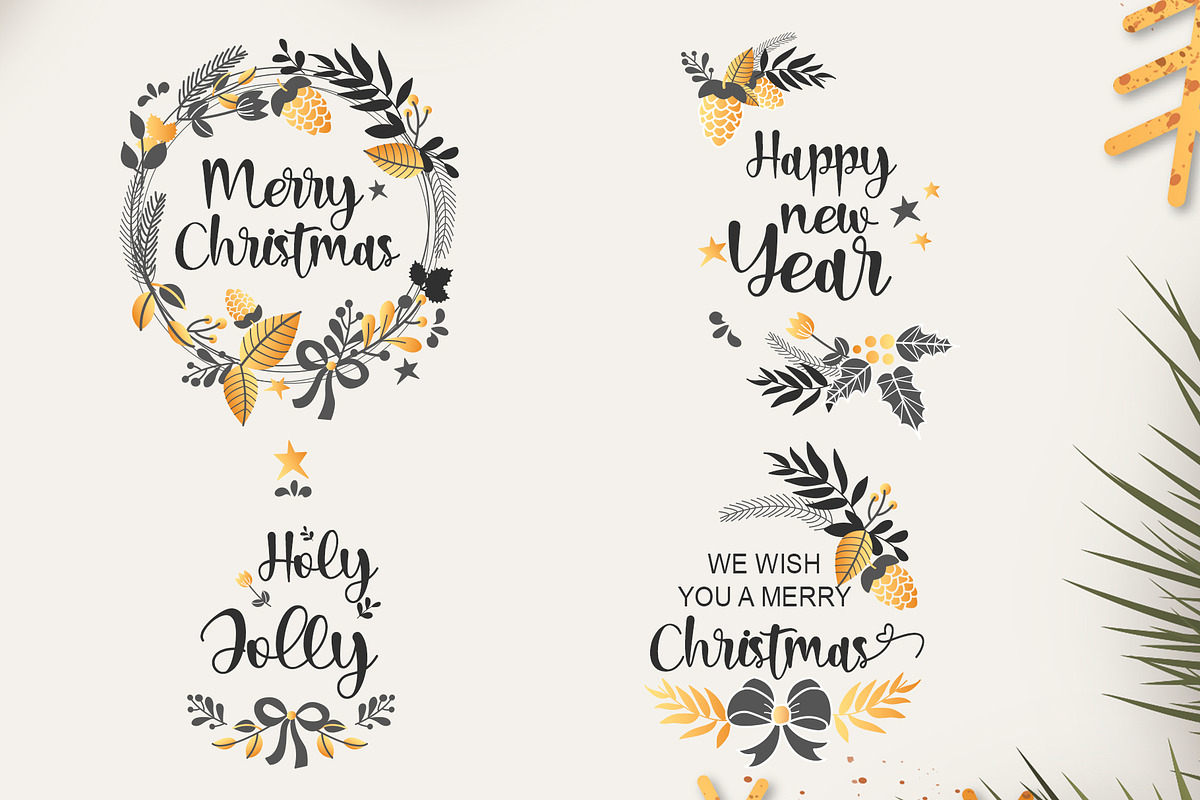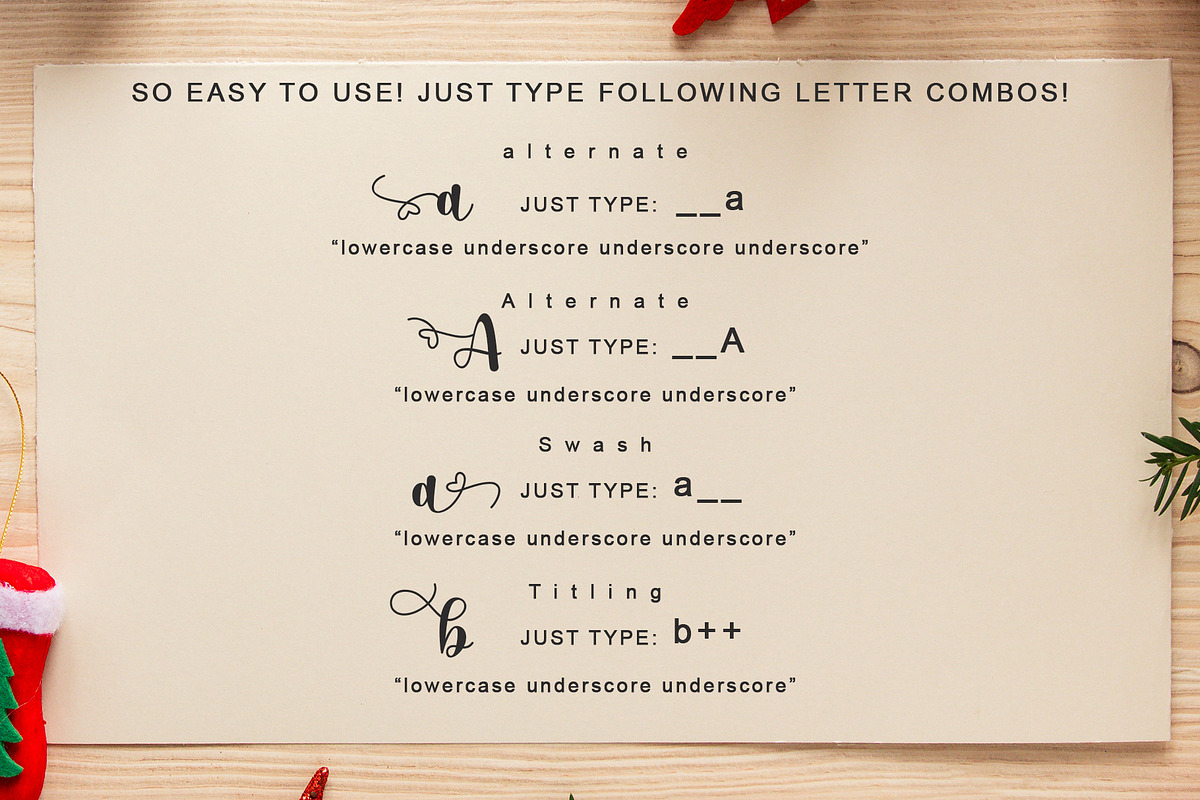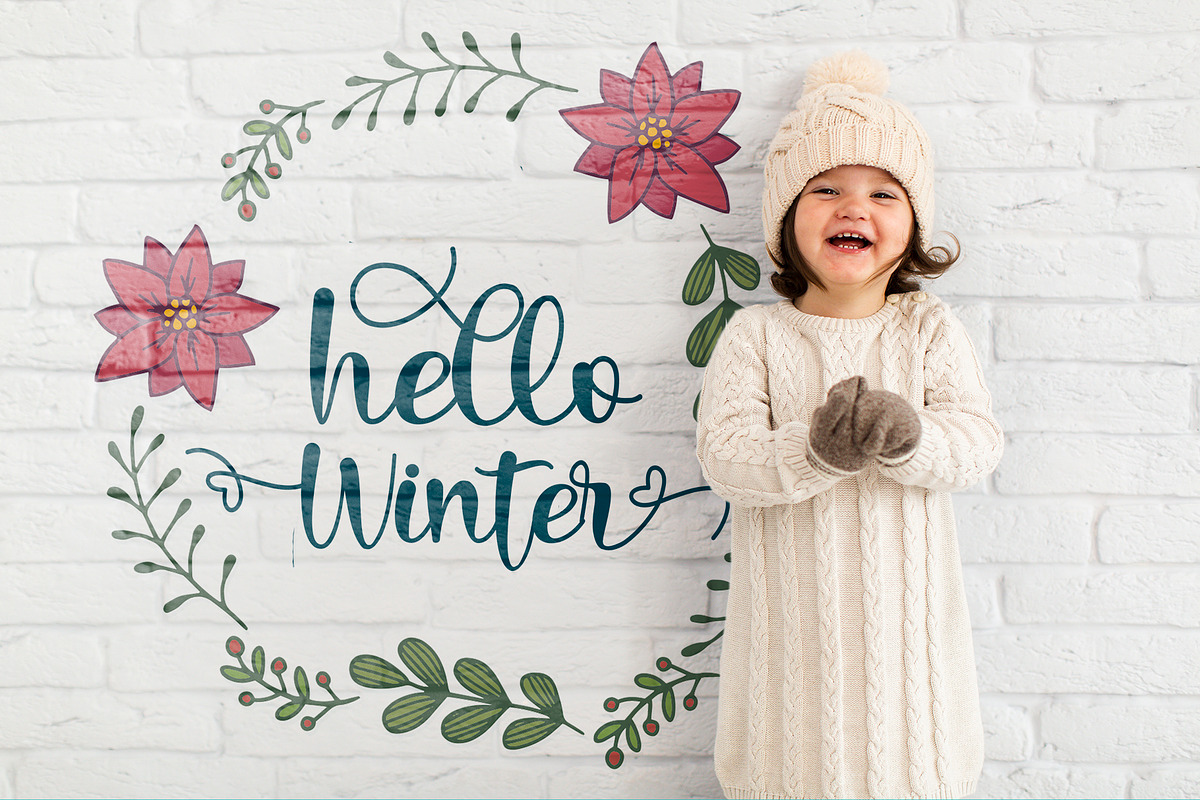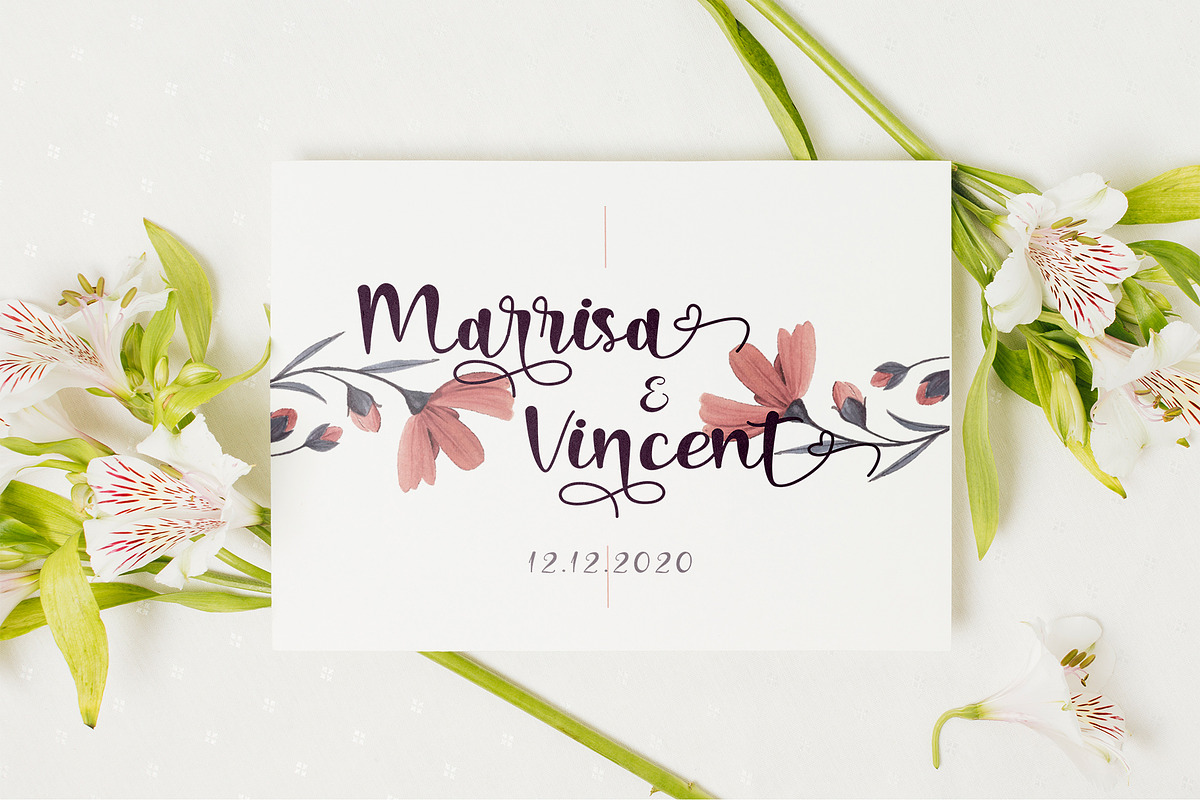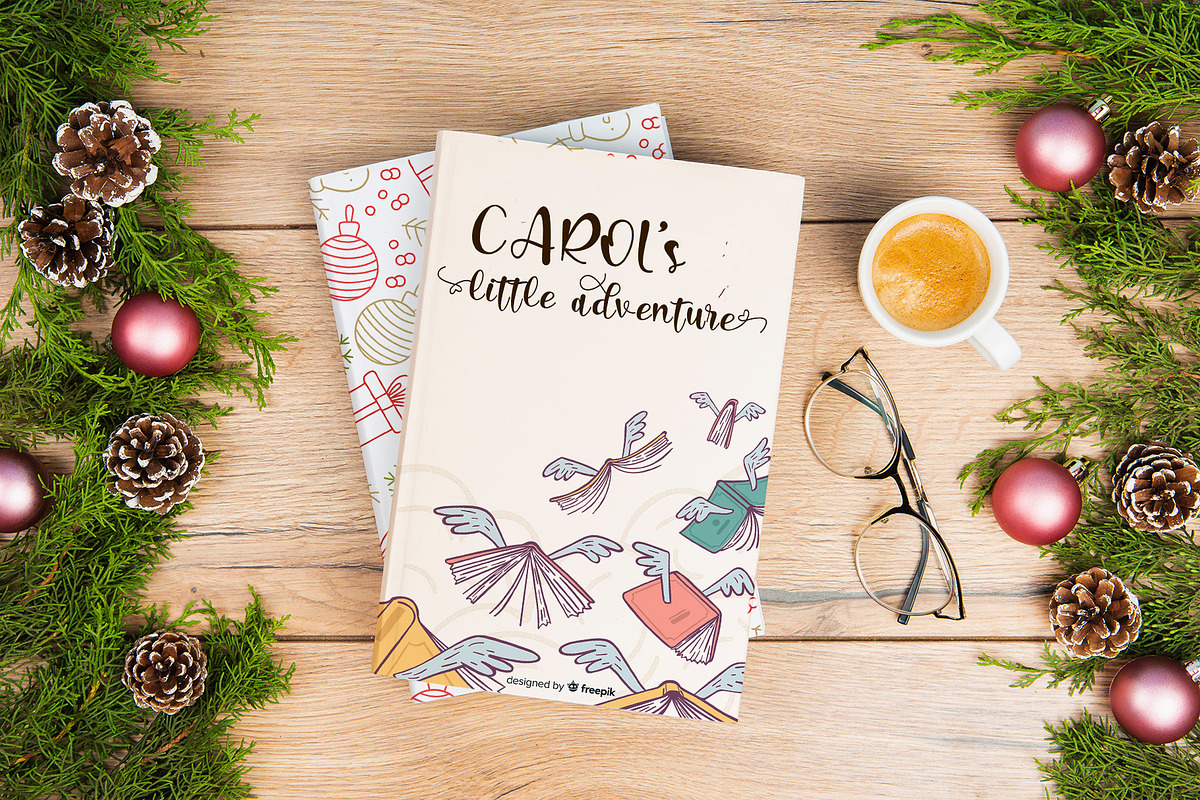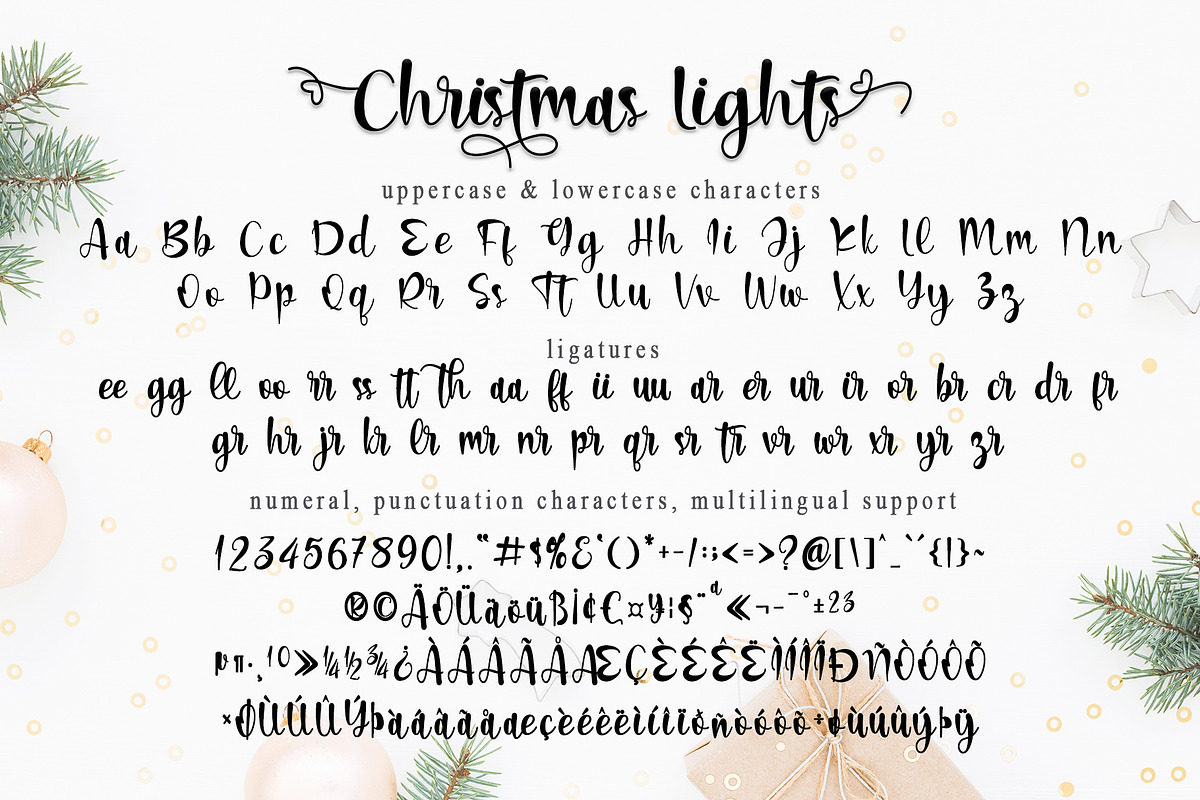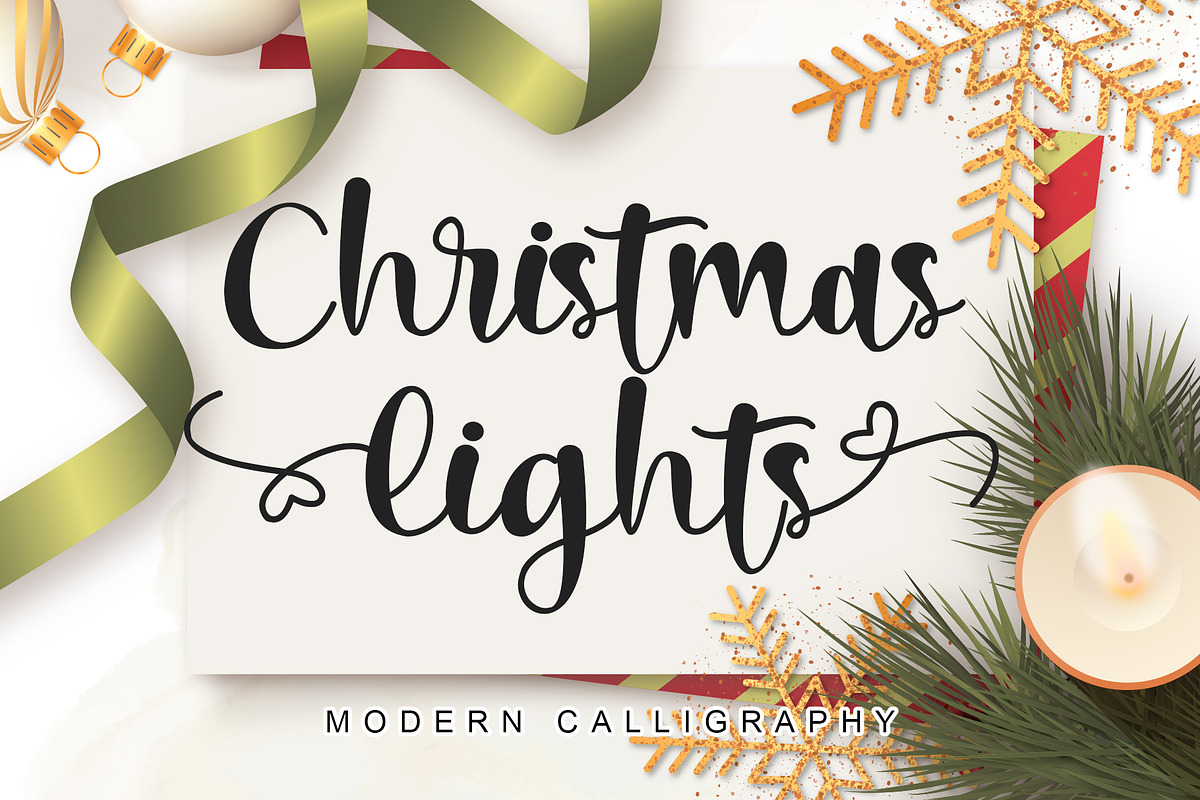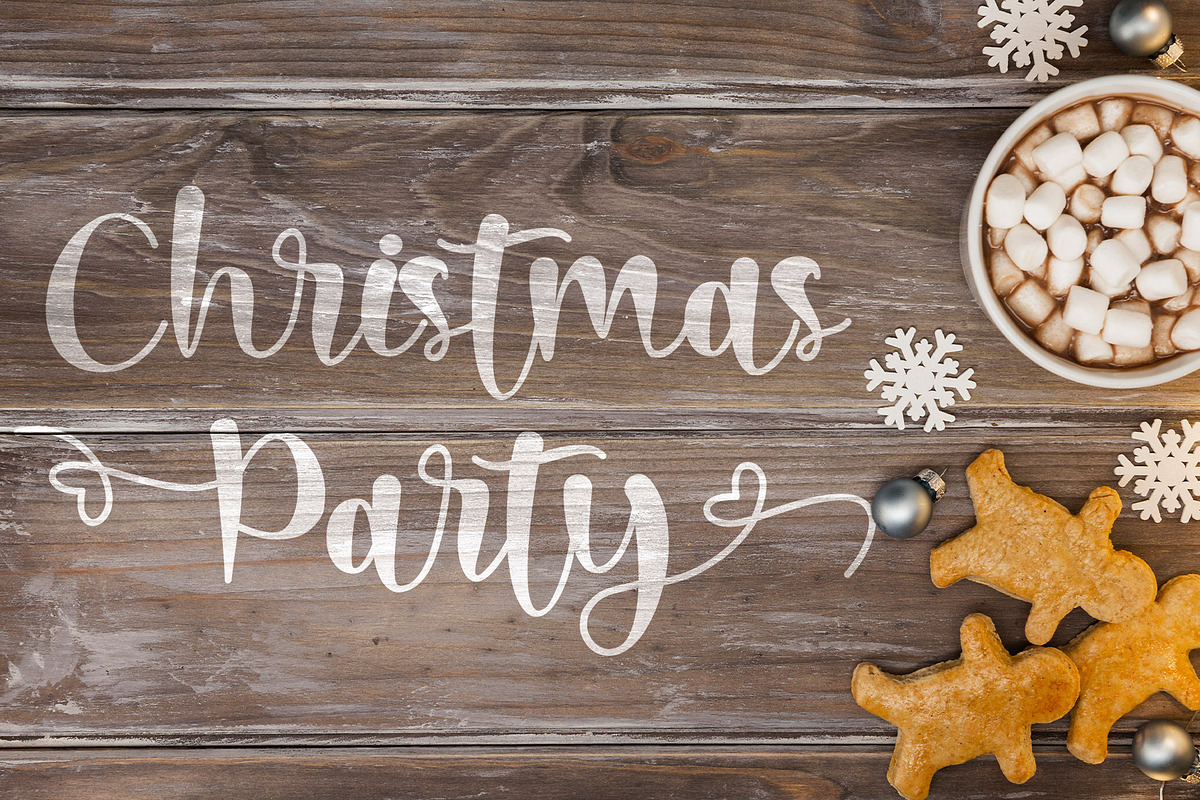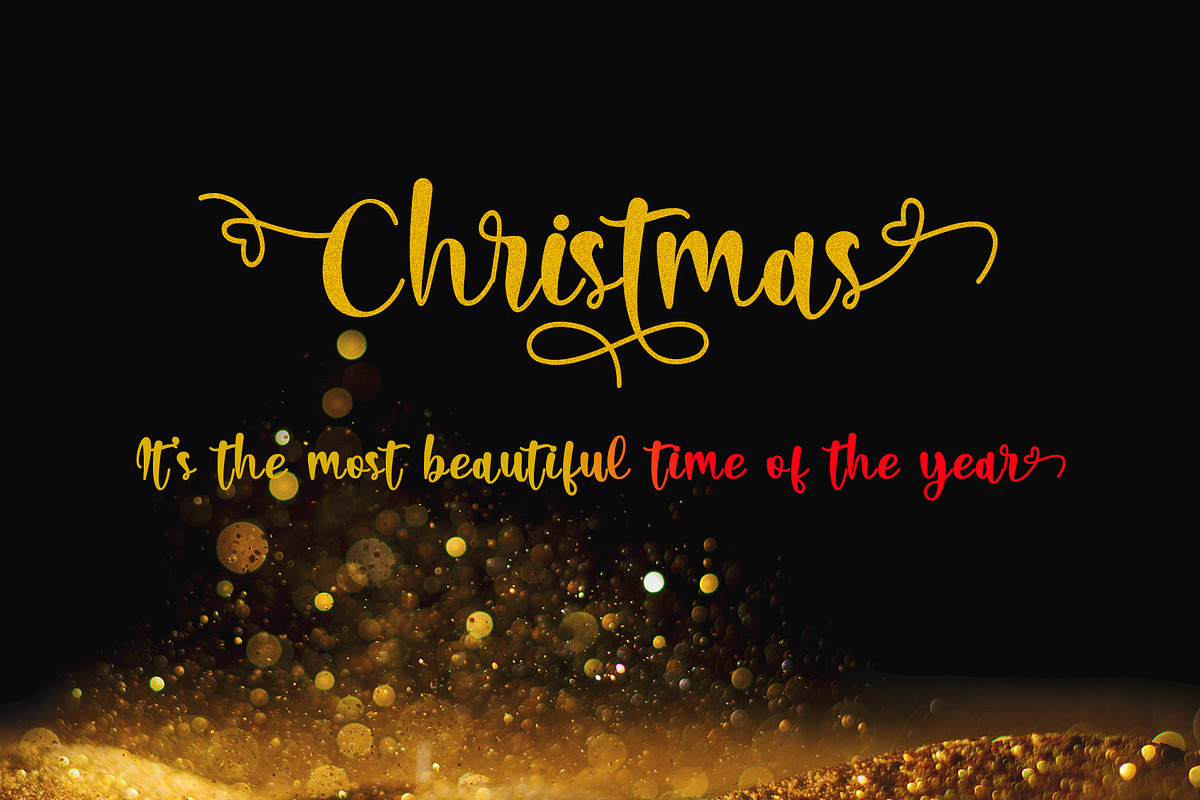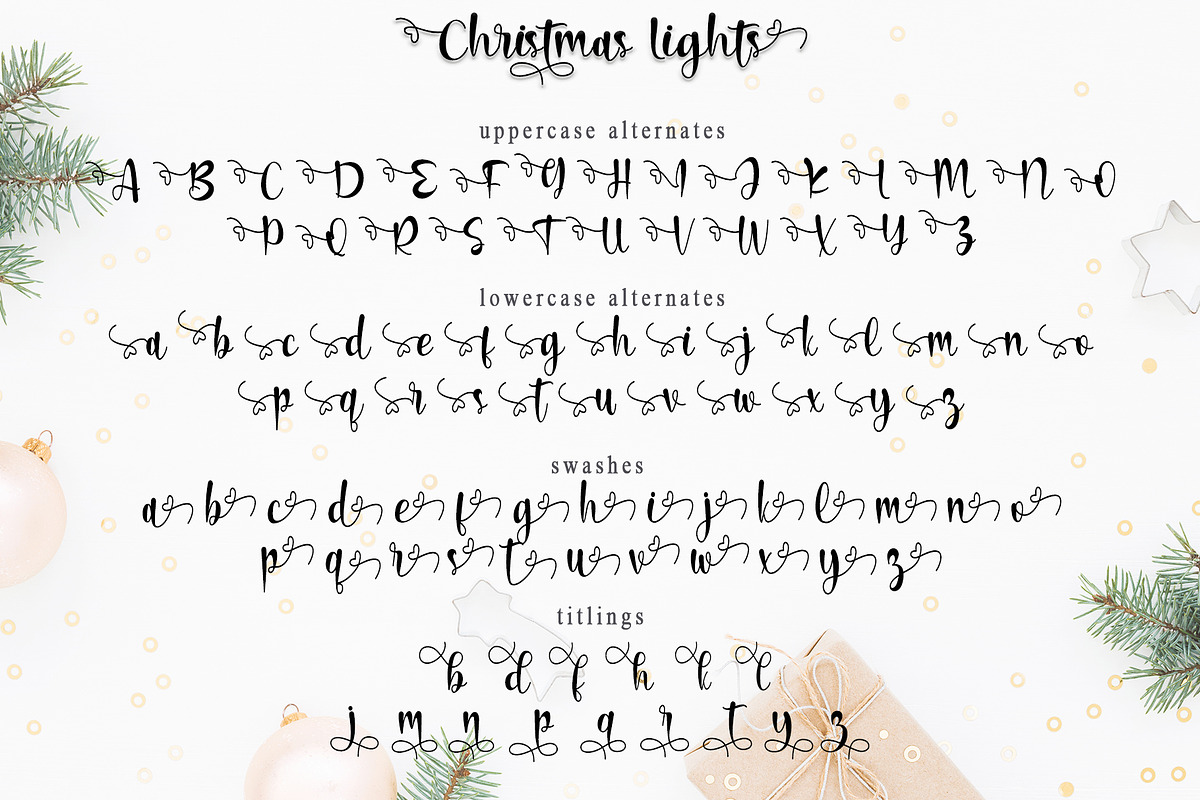
Christmas Lights
Christmas lights is a modern handwritten font with an incredibly friendly feel. It features gorgeous swashes and ligatures that make this script incredibly versatile. Whether you’re looking for fonts for Instagram or calligraphy scripts for DIY projects, Christmas lights will turn any creative idea into a true piece of art! This font is PUA encoded which means you can access all of the amazing glyphs and swashes with ease! It also features a wealth of special features including alternate glyphs and ligatures.
- Many features: Uppercase Alternate, Lowercase Alternate, Titling, Swash, and Ligature
- Support multilingual; ä ö ü Ä Ö Ü ß ¿ ¡